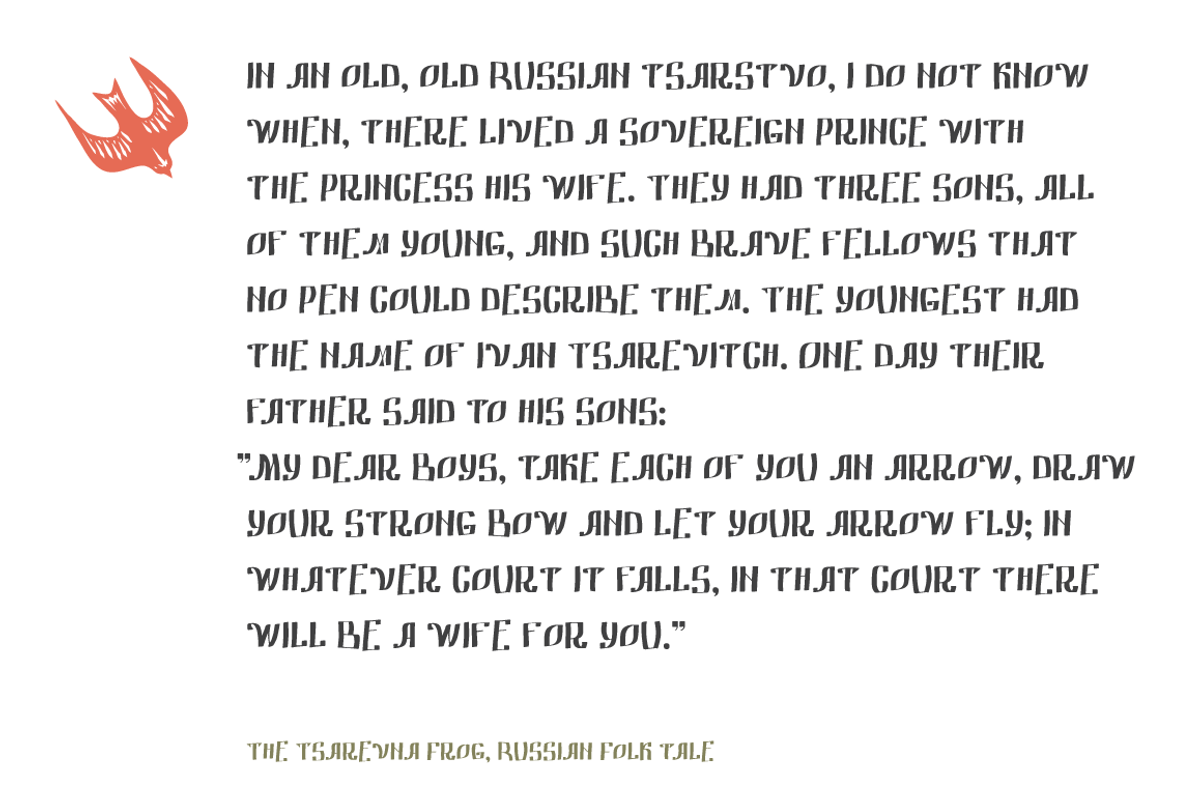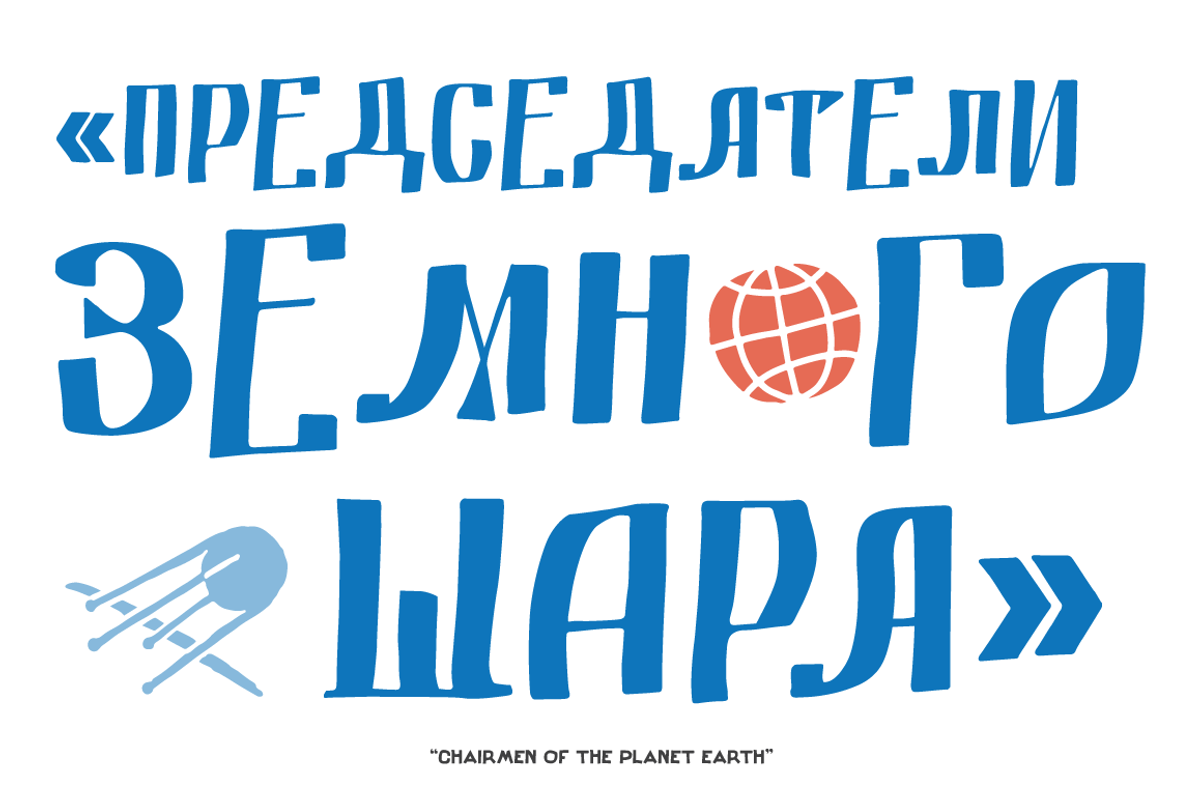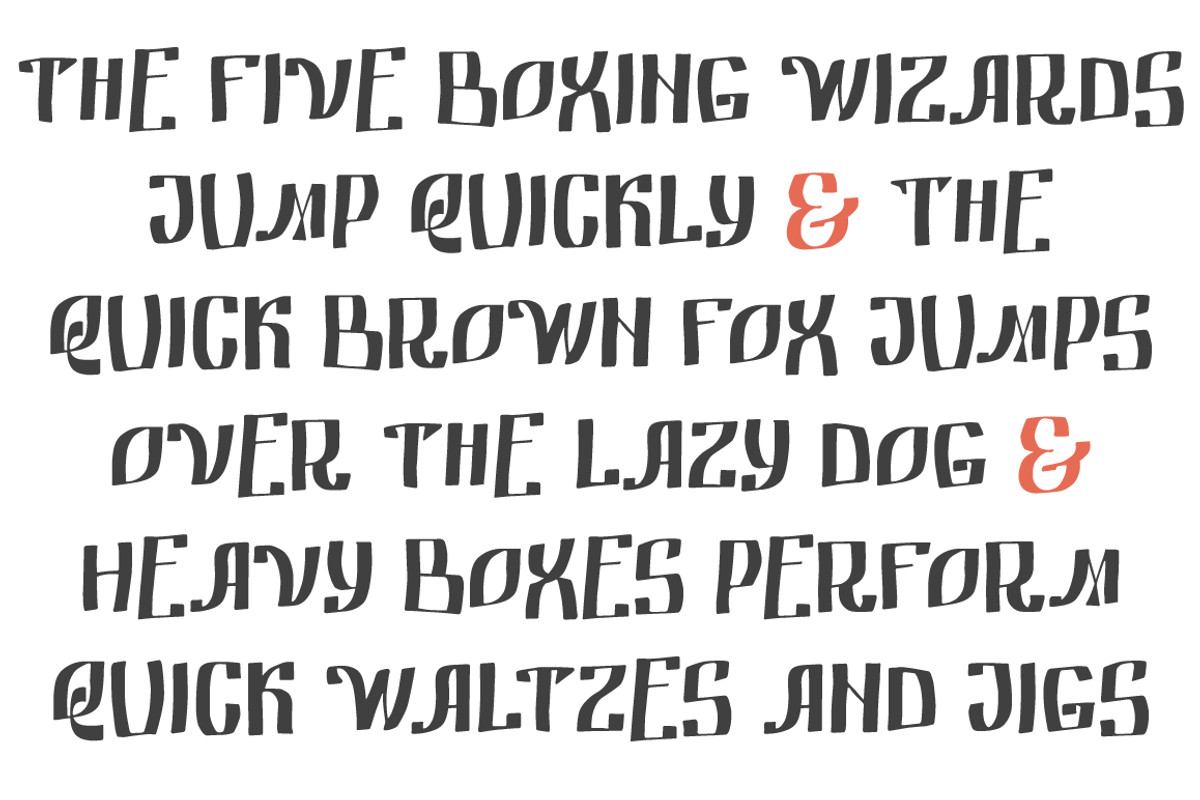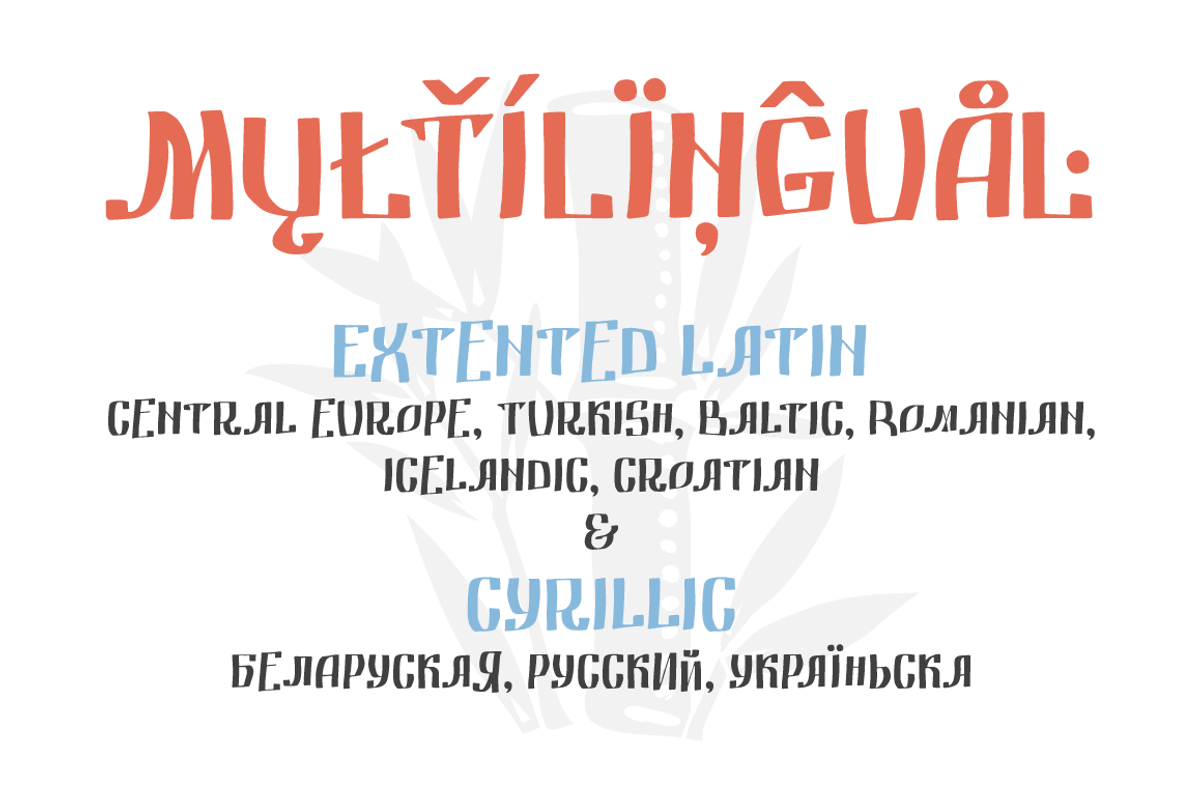
Fedot hand-drawn font
Fedot hand-drawn font by Youhhou is a font selected for branding, posters, packaging, typography.
- Lowercase typesetting with its variable letter heights is more brisk and authentic, and uppercase is more equable and neutral.
- Some images of letters are the same in lowercase and uppercase.
Why Fedot hand-drawn font is worth a look
Fedot hand-drawn font by Youhhou fits naturally into Branding, posters, packaging, typography.